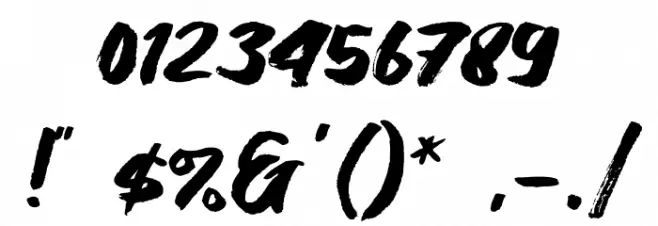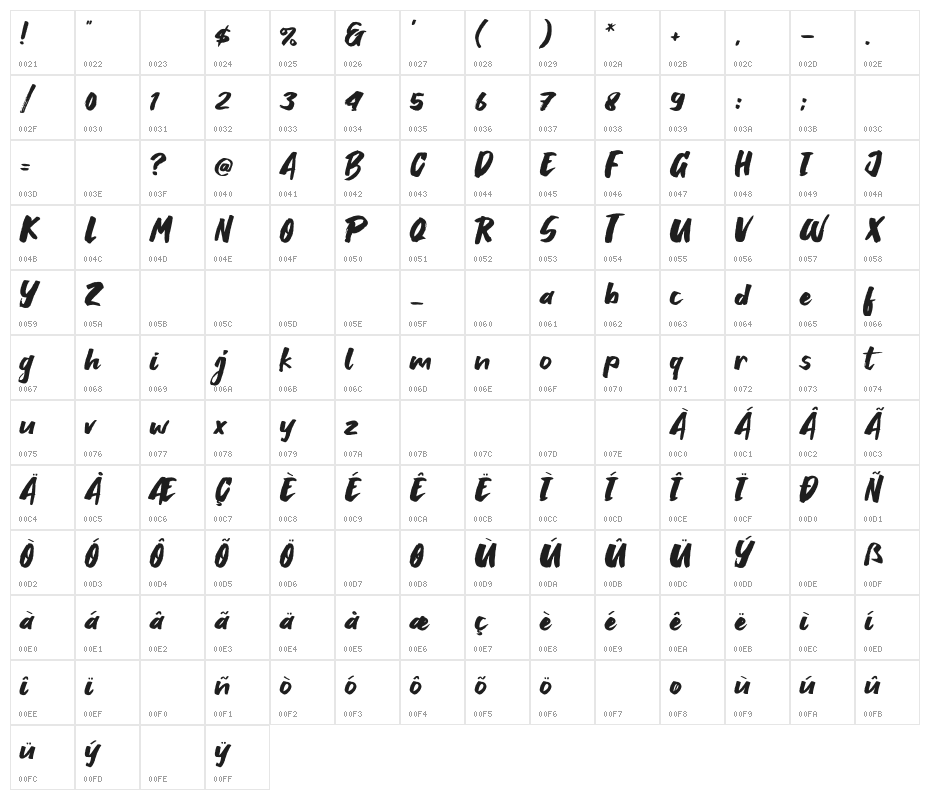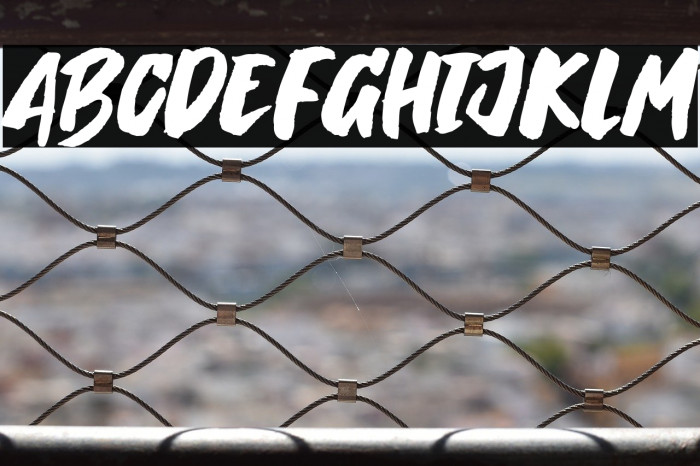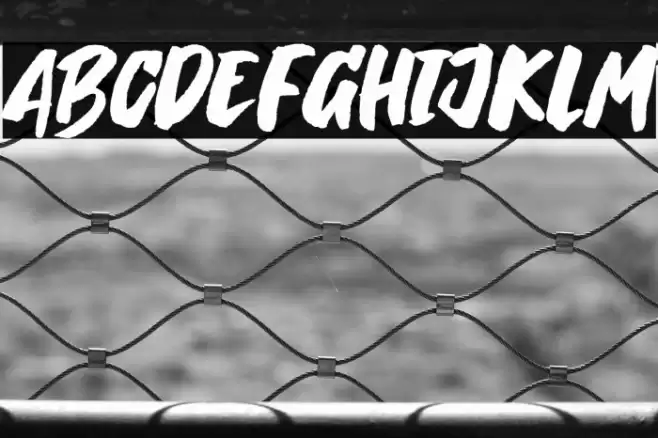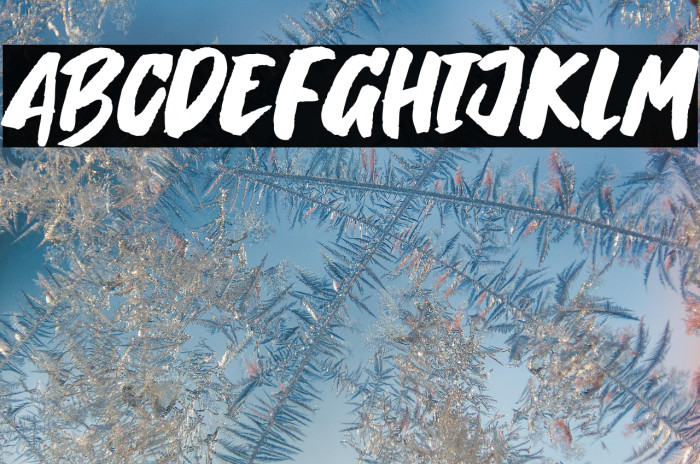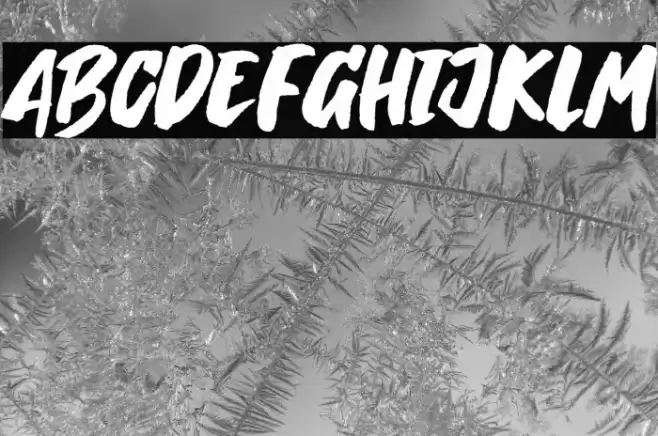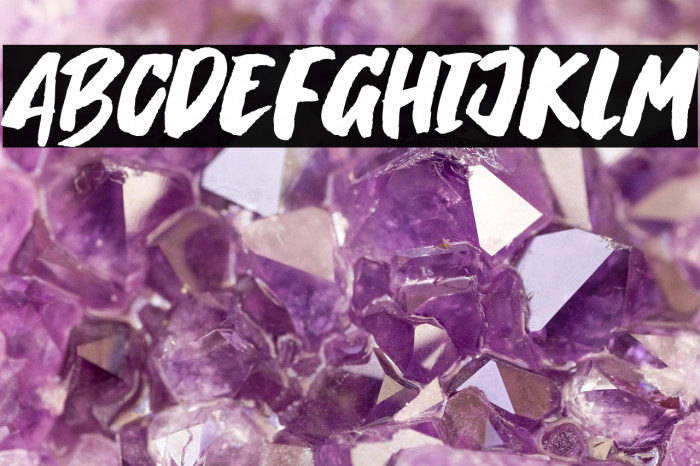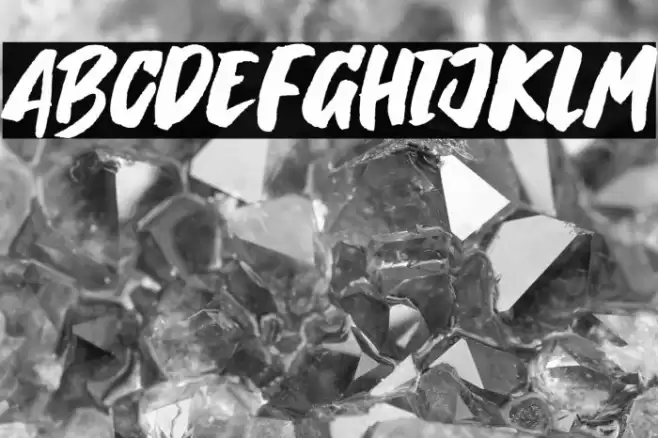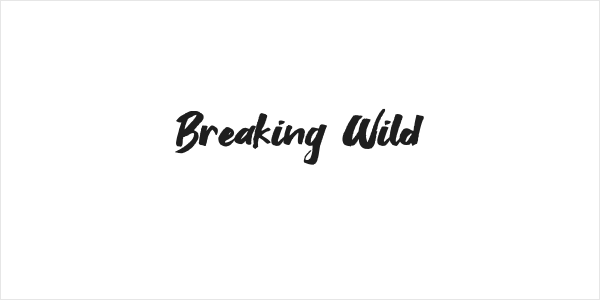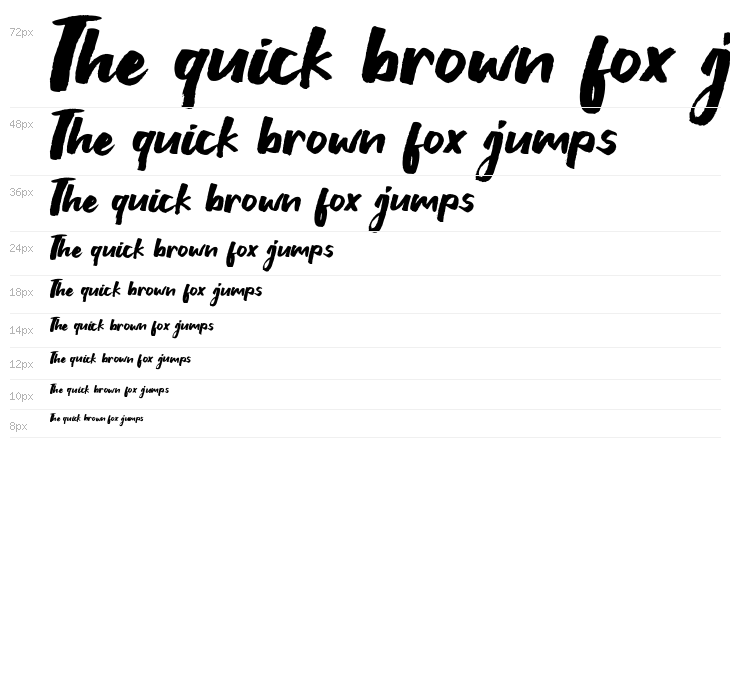
Breaking Wild Font
Breaking Wild Description
This font features a bold, brush-style script that exudes energy and dynamism. The strokes are thick and expressive, with a hand-painted appearance that gives it a raw, artistic feel. The uppercase letters are bold and commanding, while the lowercase letters maintain a consistent flow, enhancing the font's overall fluidity. Numbers and special characters are crafted with the same bold strokes, ensuring uniformity across all elements. The font's style is reminiscent of street art or graffiti, making it ideal for projects that require a strong, impactful visual statement.
| Proposed Projects | Ideal for posters, branding, album covers, and any design needing a bold, artistic touch. |